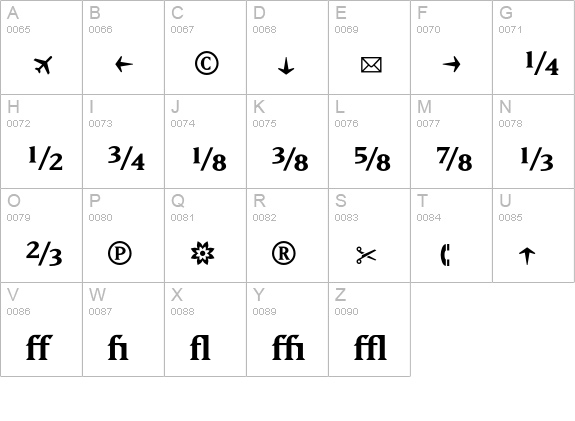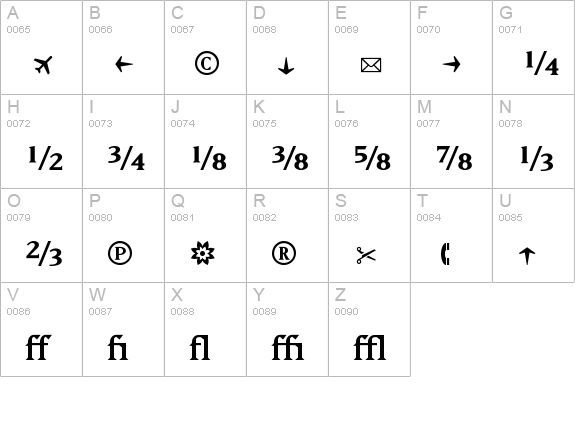
MatrixBoldFractions Font Details
MatrixBoldFractions is a modern and sleek font designed specifically for displaying fractions with bold clarity. Its clean lines and distinct characters make it perfect for any project that requires precise and professional fractions. The bold weight of the font ensures that fractions stand out prominently on any document or design. This versatile font is suitable for a wide range of applications, from academic papers to graphic design projects. Whether you are creating educational materials, promotional materials, or technical documents, MatrixBoldFractions is the ideal choice for clear and legible fractions. Best of all, MatrixBoldFractions is freely available to download at FontsMarket.com. This means you can easily access this high-quality font and incorporate it into your projects without any additional cost. Don't miss out on the opportunity to enhance the readability and professionalism of your work with MatrixBoldFractions. Download it today and experience the difference it can make in your designs.